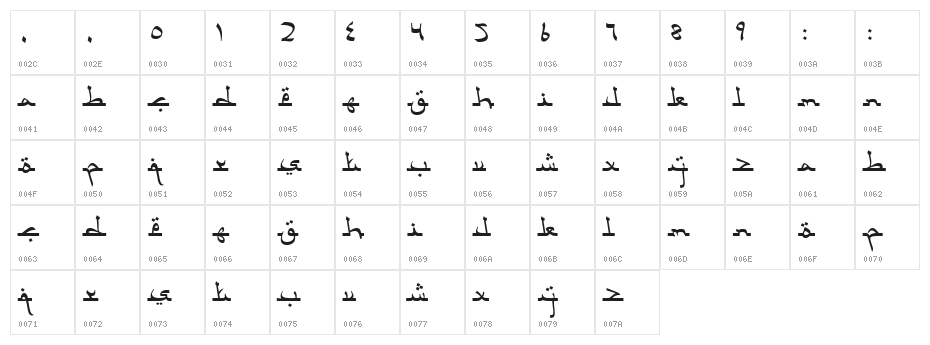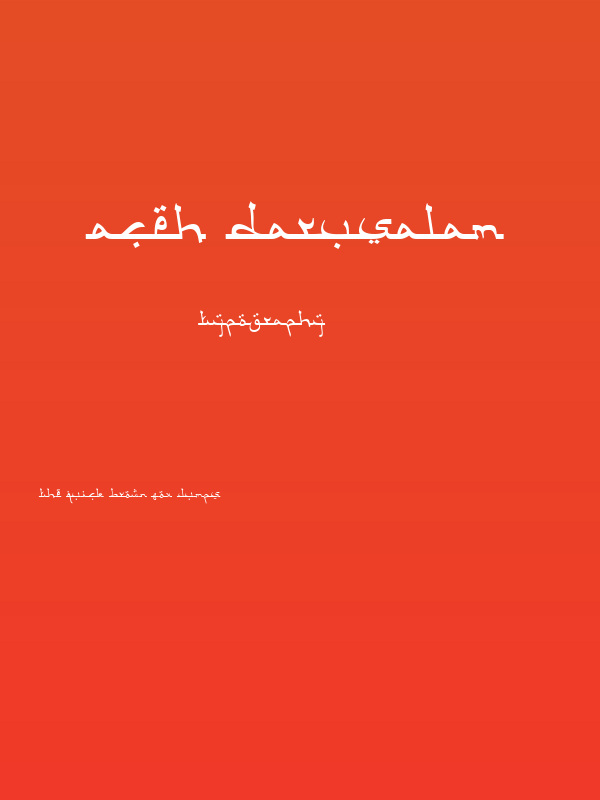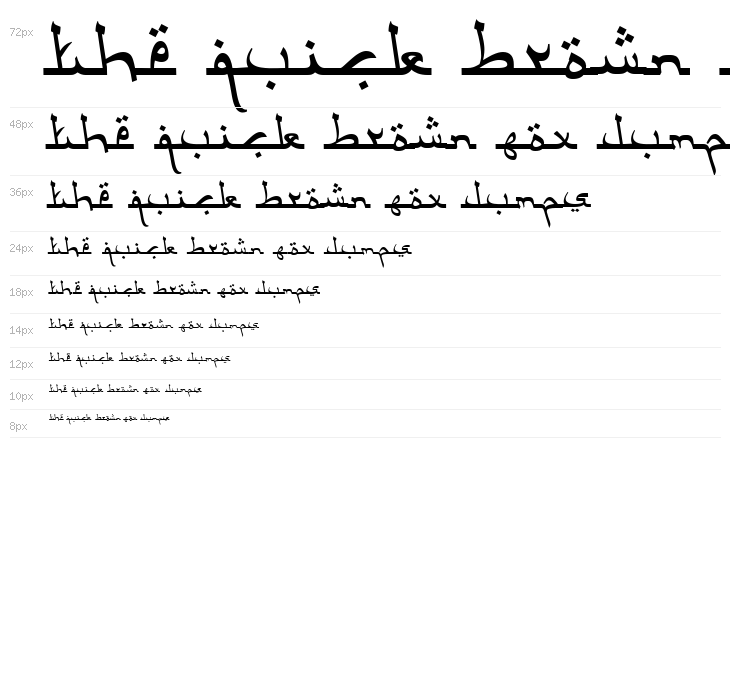
Aceh Darusalam Font
Aceh Darusalam Description
This font exhibits a traditional Arabic script style, characterized by its elegant and flowing lines. The letters are connected in a cursive manner, with distinctive hooks and loops that are typical of Arabic calligraphy. The script maintains a consistent baseline, with ascenders and descenders that add to its ornamental appearance. The numerals are styled to match the script, maintaining the same fluidity and grace. This font is suitable for projects that require a touch of cultural authenticity and artistic flair.
| Overall Style | Traditional |
| Use Case | Logos, Decorative text, Cultural materials |
| Proposed Projects | Ideal for cultural publications, artistic projects, invitations, and decorative signage. |